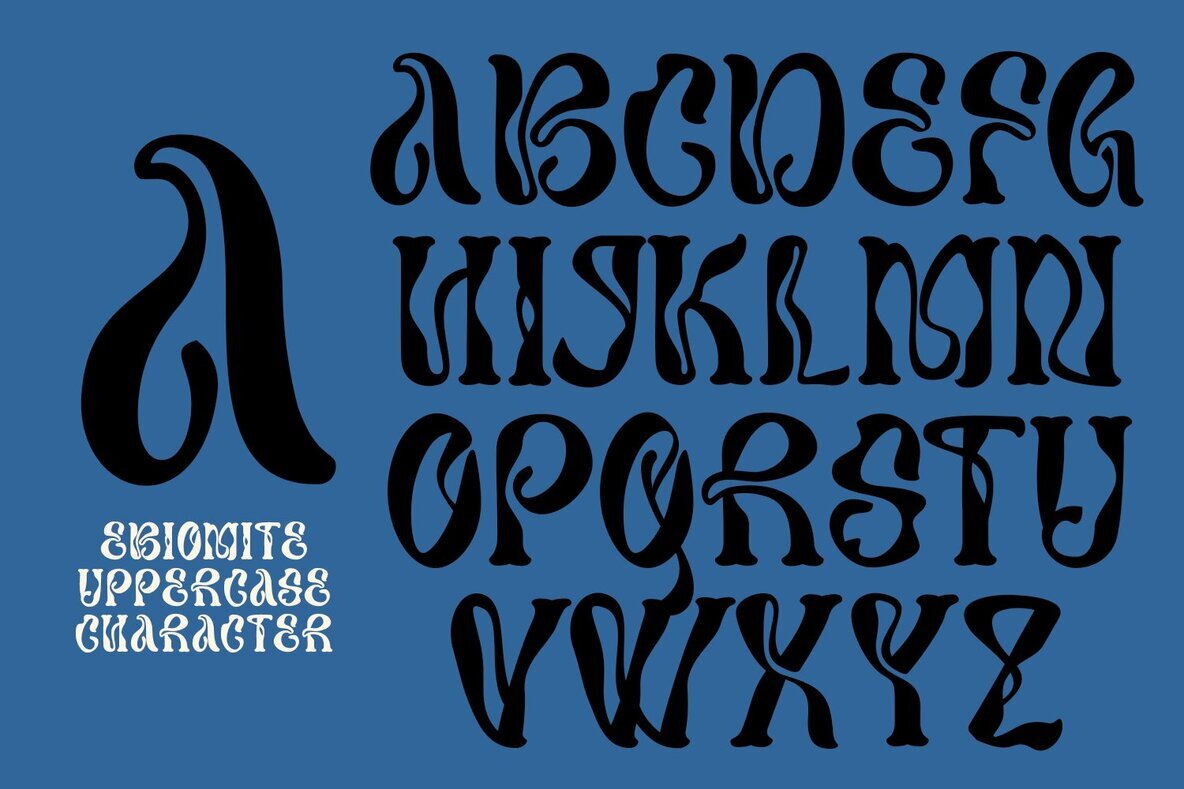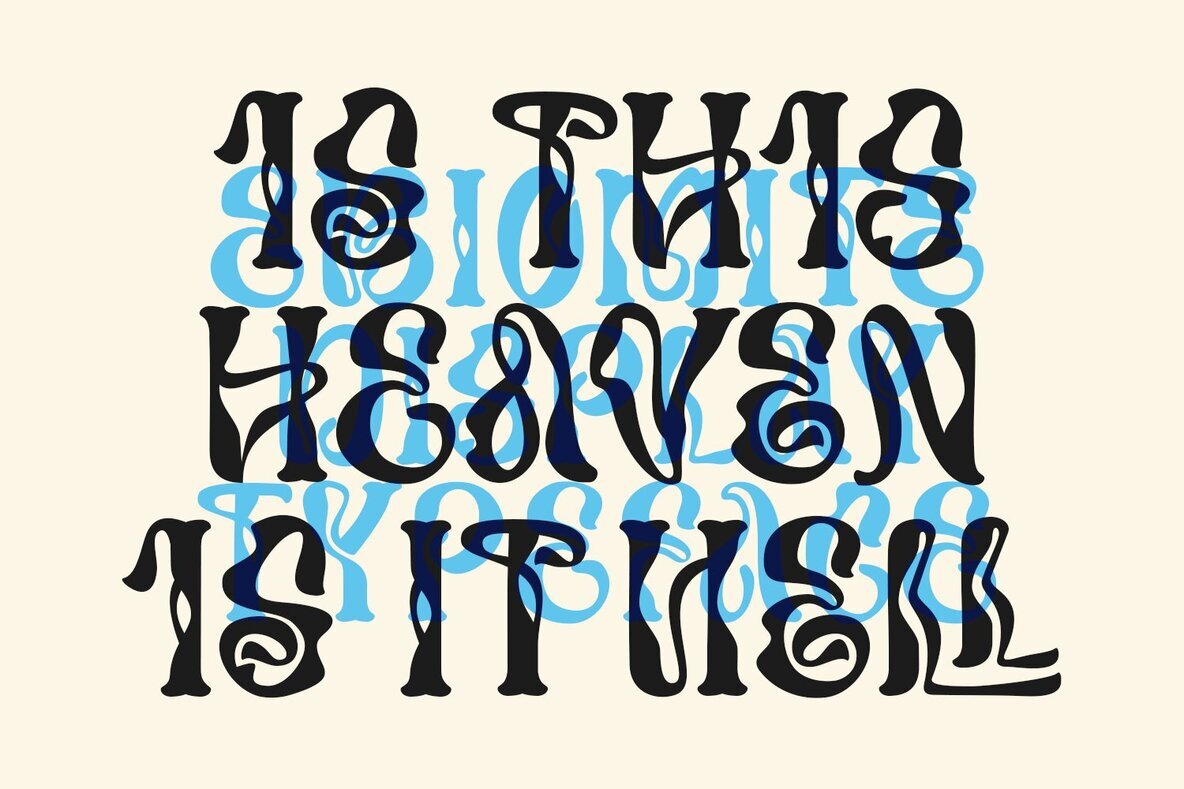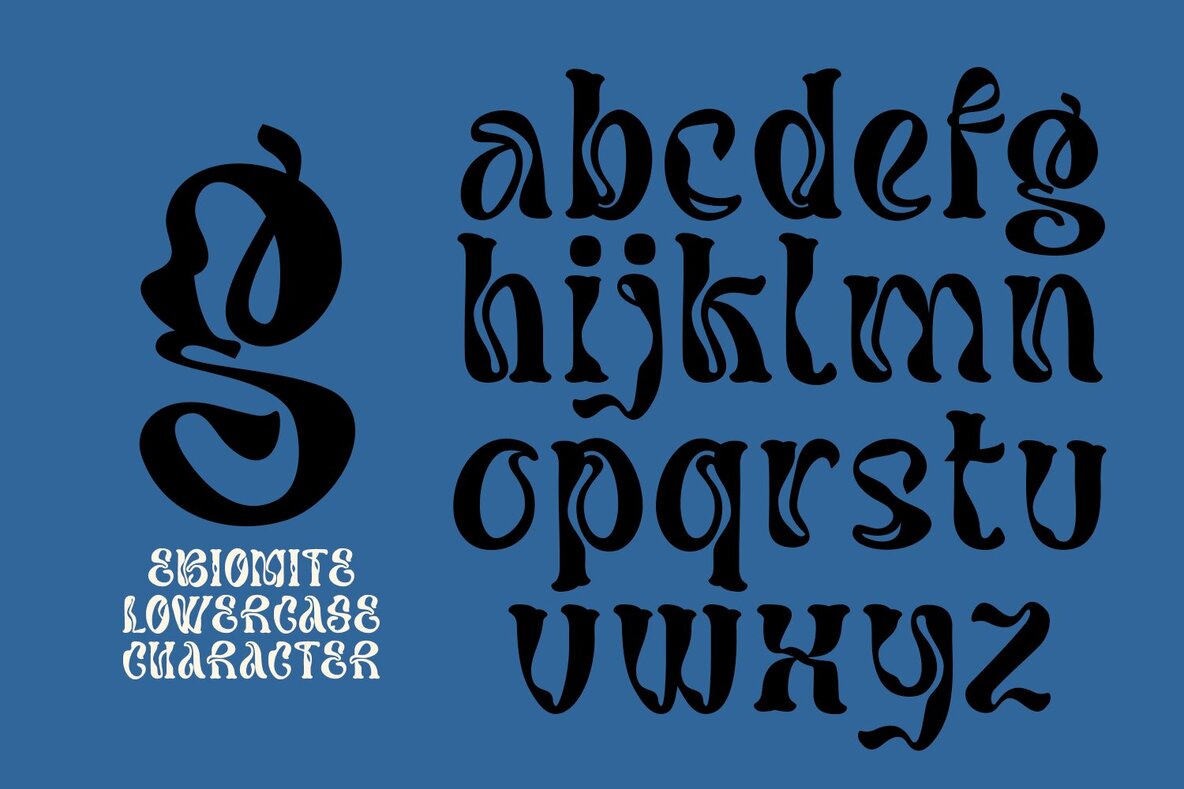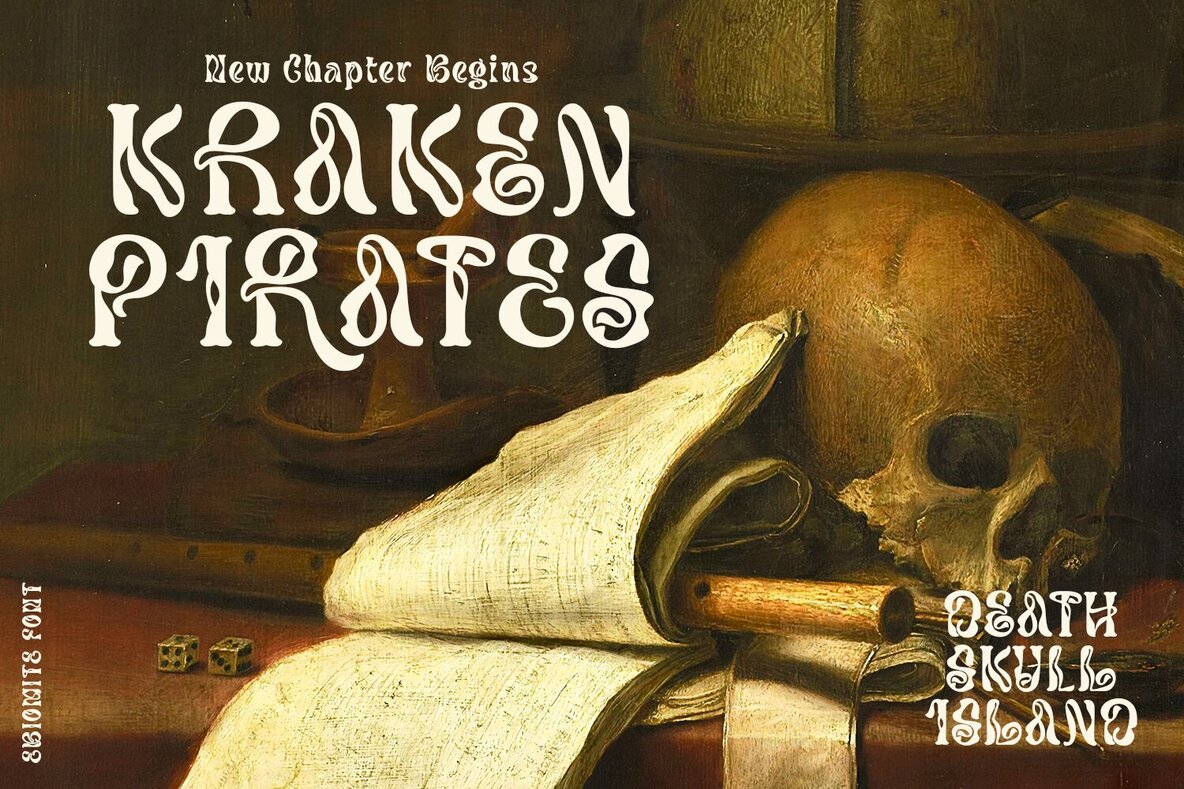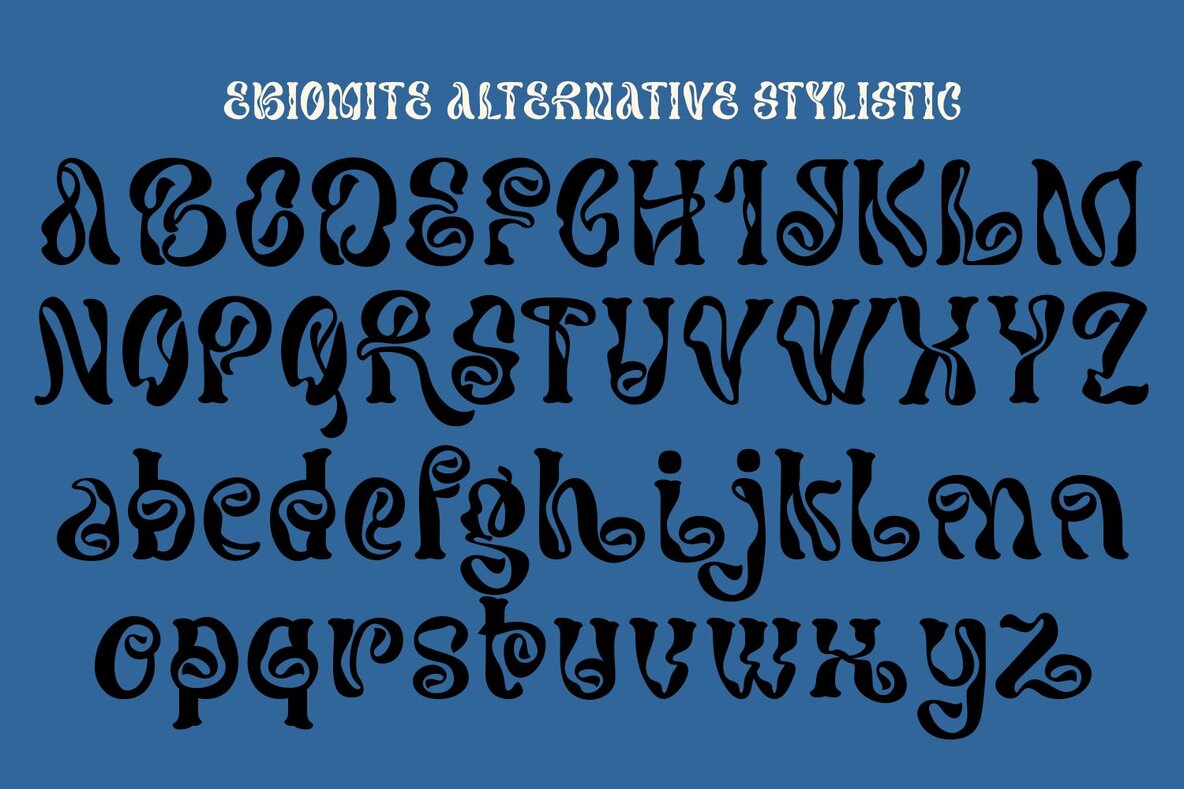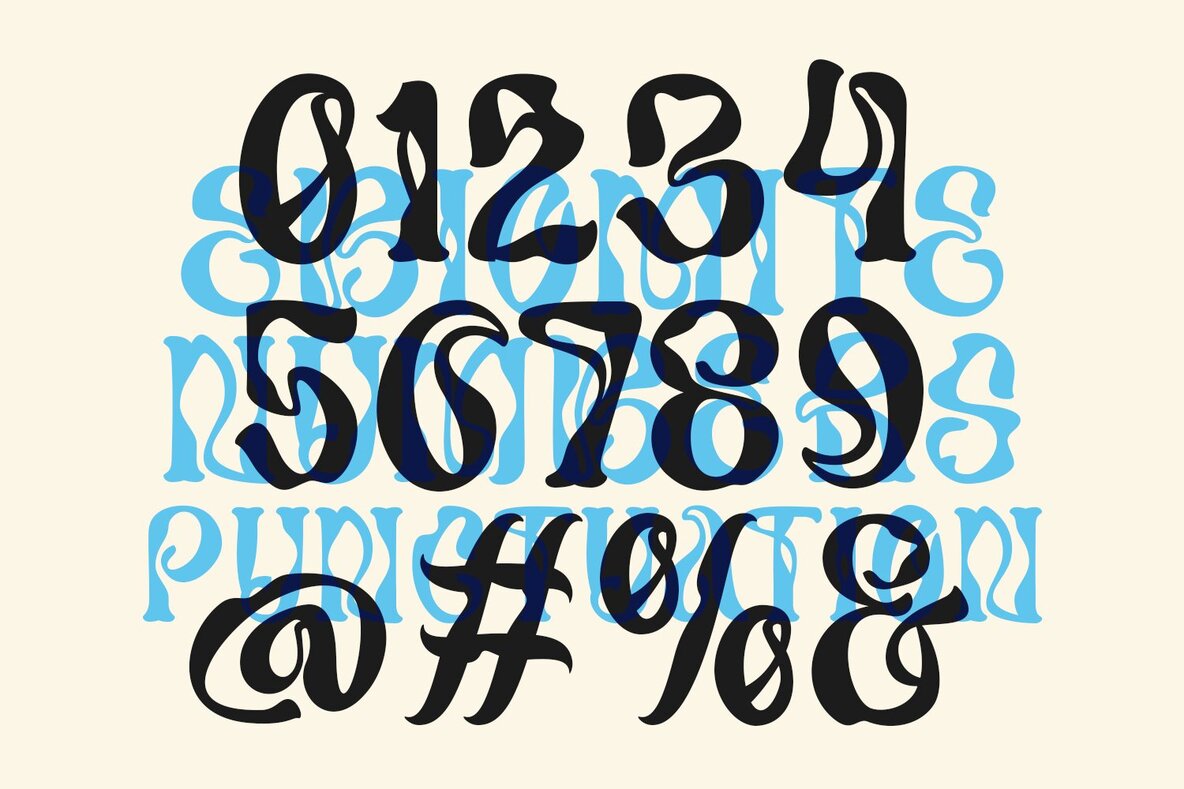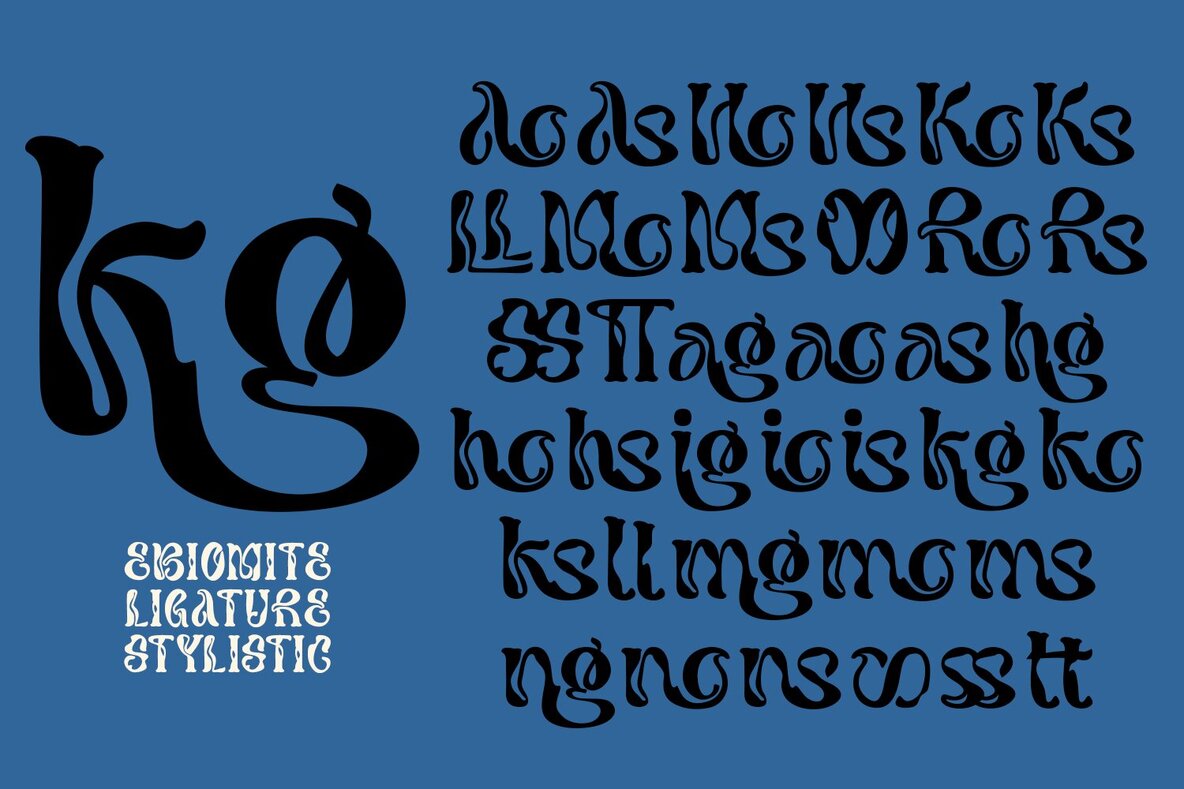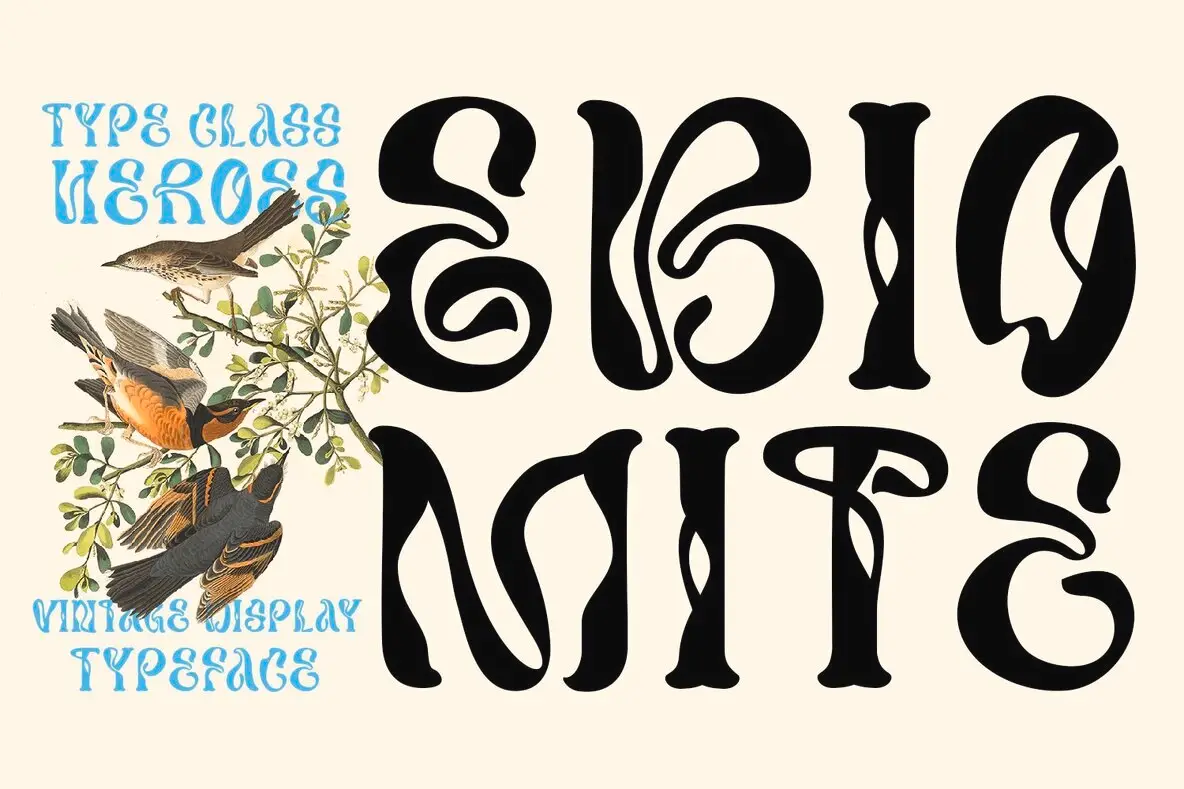
Ebiomite is a versatile typeface that brings uniqueness to your design projects. Its stylish letters are crafted to wave and twist in harmony, creating an elegant and distinct typographic aesthetic. Perfect for designers looking to inject personality and flair into their work, Ebiomite supports creative exploration and distinctive visual presentation.
This typeface is ideal for applications ranging from branding to digital graphics, where every letter contributes to a seamless yet dynamic look. Ebiomite promises to enhance your typographic designs by offering a blend of elegance and modernity, making it a valuable asset in any designer's toolkit.